Today I am featuring more amazing FREE fonts that you absolutely need in your collection!
• First off we have Dallon!!
I am in LOVE with this font! It has “thick” connecting lines that make is a PERFECTÂ machine cutting font!
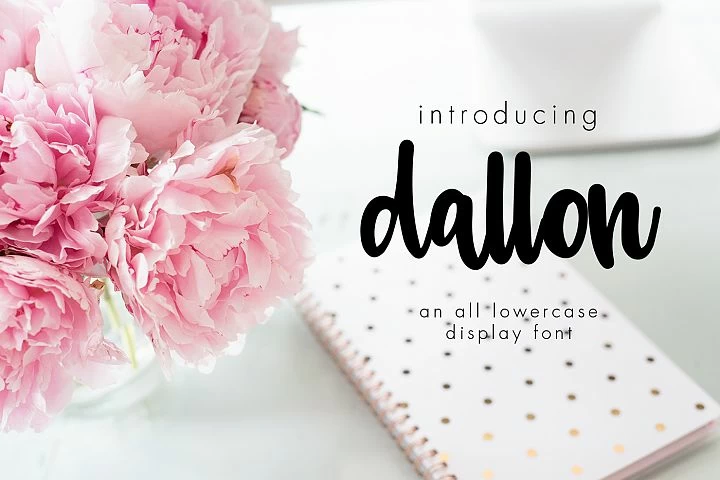
• Next, we have THJ FREE FONT BUNDLE!!
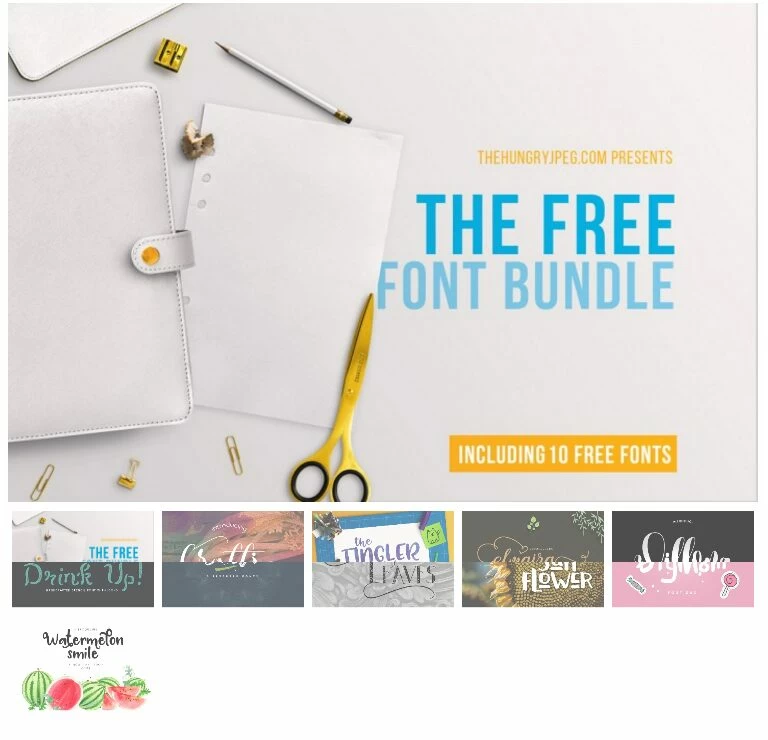
• This next beauty is called Salted Mocha and it is NOT time sensitive! Yay!
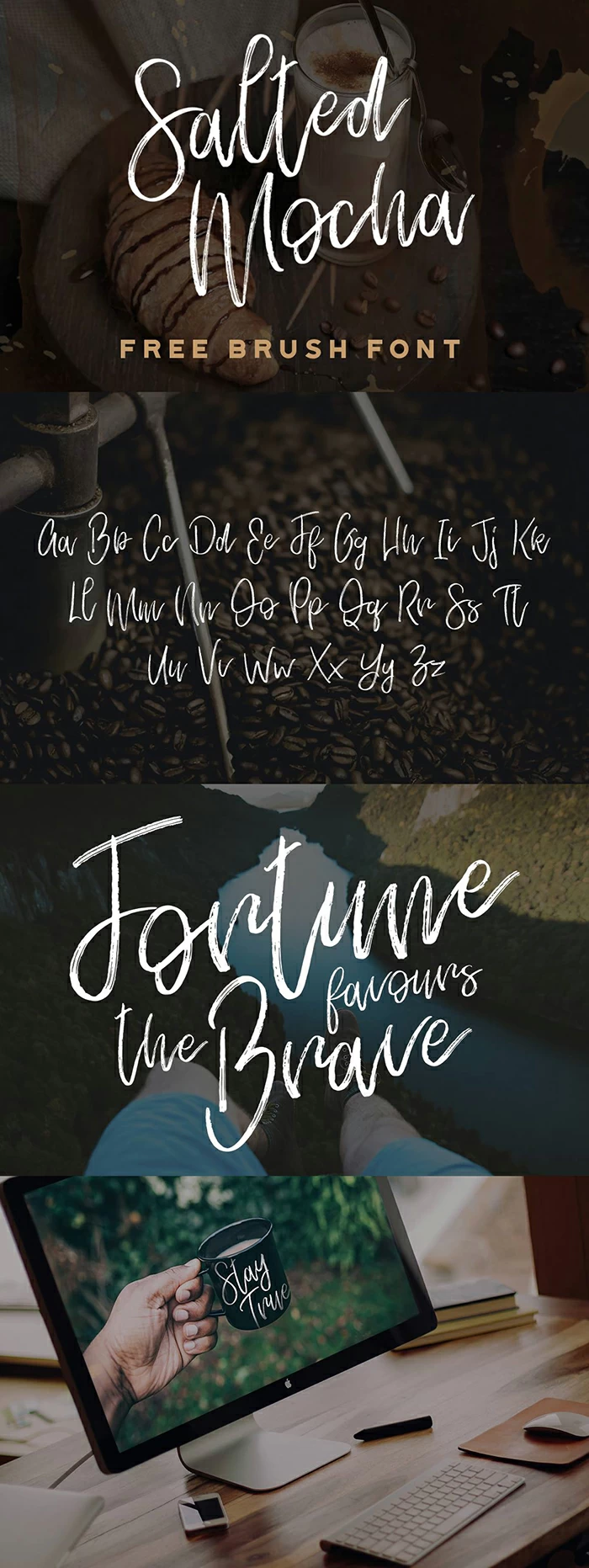
• And just in case you missed this beauty yesterday.. here it is again!